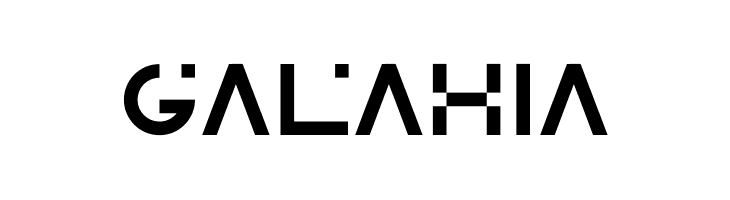
An outline font with a playful, artistic style and decorative appeal.
A bold, playful font with angular, cartoonish characters.
A modern, angular font with a geometric and futuristic style.
A bold, decorative font with a medieval, gothic-inspired design.
A bold, playful handwritten font with thick, rounded strokes.
A bold, geometric font with sharp angles and a futuristic style.
A bold, modern sans-serif font with excellent readability and versatility.
A modern, geometric sans-serif font with a clean and approachable design.
A modern, thin font with clean lines and elegant proportions.
A decorative serif font with elegant curves and high contrast, perfect for striking displays.
A flowing, cursive script font with elegant, sweeping strokes.
A lively, cursive script font with interconnected letters and moderate stroke thickness.
A bold, playful font with a hand-drawn, whimsical style.
An elegant, flowing script font with graceful loops and sophisticated flair.
A bold, dynamic font with geometric and organic shapes, offering a playful and artistic flair.
A modern, decorative outline font with playful and structured forms.
A bold, distressed font with a grunge aesthetic and intricate patterns.
A bold, decorative font with a distressed, textured design.
A bold, vintage-style font with thick, rounded serifs and a handcrafted feel.
A distressed, grunge-style font with bold, textured characters.
A decorative, geometric font with a technical and architectural style.
A bold, textured font with a woven, bamboo-like appearance.
A bold, three-dimensional font with geometric and structured uppercase characters.
A sophisticated, calligraphic font with elegant, flowing strokes and sharp serifs.
A bold, industrial-style font with geometric shapes and sharp angles.
A bold, playful font with a 3D shadow effect and rounded strokes.
A modern, geometric font with circular forms and consistent line weights.